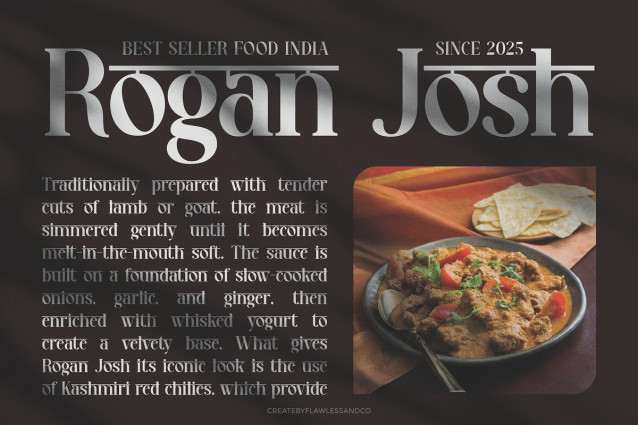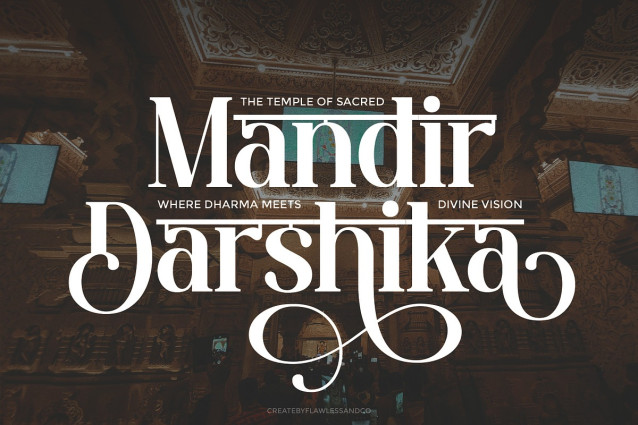
Basgira Font
Basgira Font is a modern Hindi-themed font inspired by traditional Indian ornaments. Its elegant decorative strokes, bold lines, and cultural details bring a sense of heritage and sophistication to any design. With its artistic curves and ornamental flair, Basgira is perfect for festival posters, yoga branding, cultural events, packaging, and projects that celebrate Indian tradition with a contemporary touch. Whether for branding, editorial use, or expressive displays, Basgira delivers authenticity and modern beauty in one typeface.